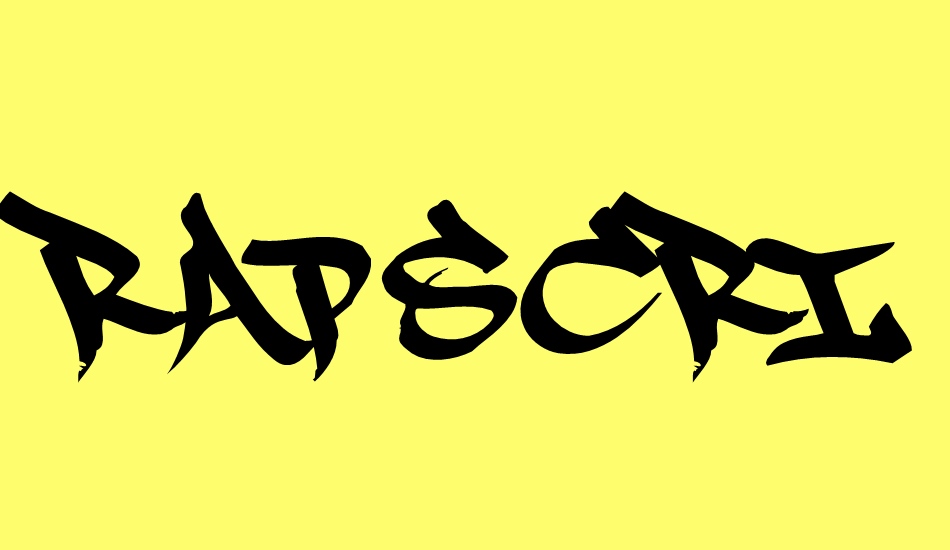
Cool Rap Fonts Ideas. 02 | tattoo style by muntab_art in. Silian calligraphy by måns grebäck.
Rap fonts explore 478 stunning rap fonts to download and find the perfect match that fits your next web and print design projects of all sizes. English français español deutsch italiano português. The original letters were hand written with a uniwide marker in an easy to read, modern.
A Attack Graffiti By Wep.
Uniwide Is A Simple And Easy To Read Graffiti/Tag Style Which Includes The Fill Letters On The Lowercase Keys & An Outline Style On The Caps.